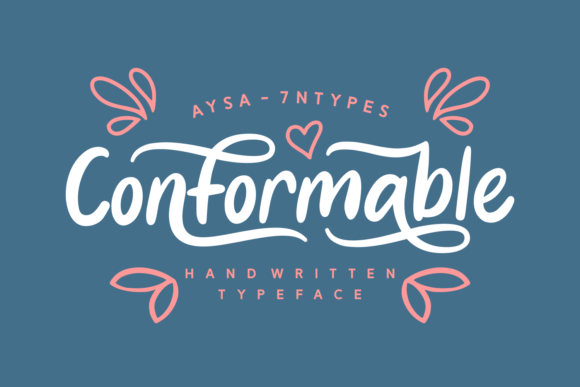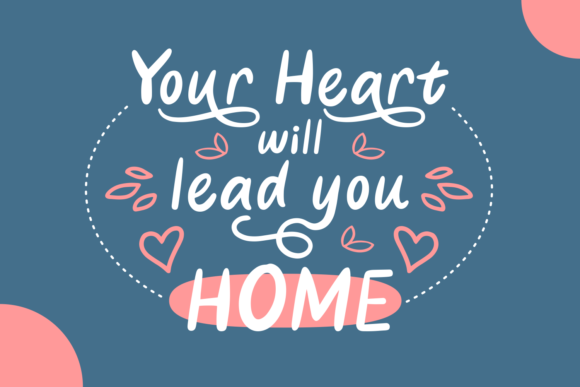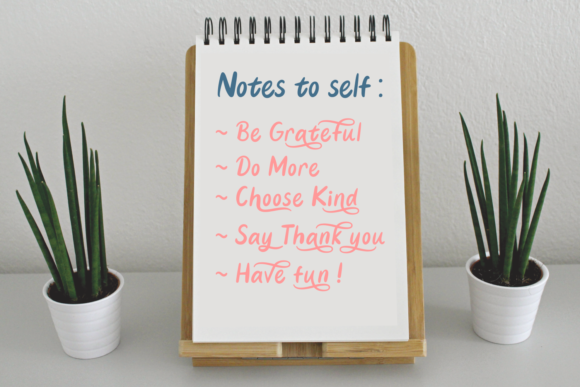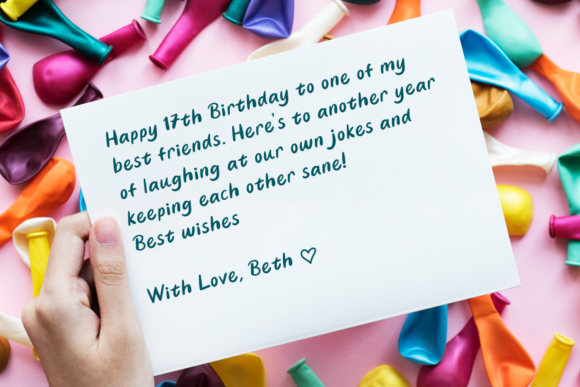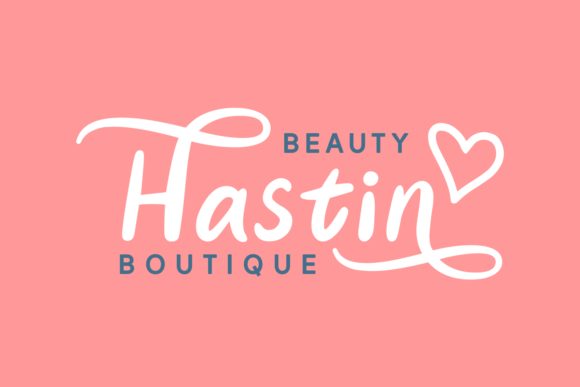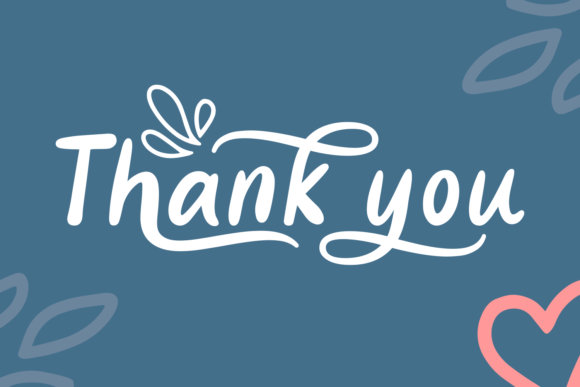
Conformable Font
The Conformable is a modern typeface. The letters includes beautiful swashes which are perfect for adding a more elegant look to your designs.